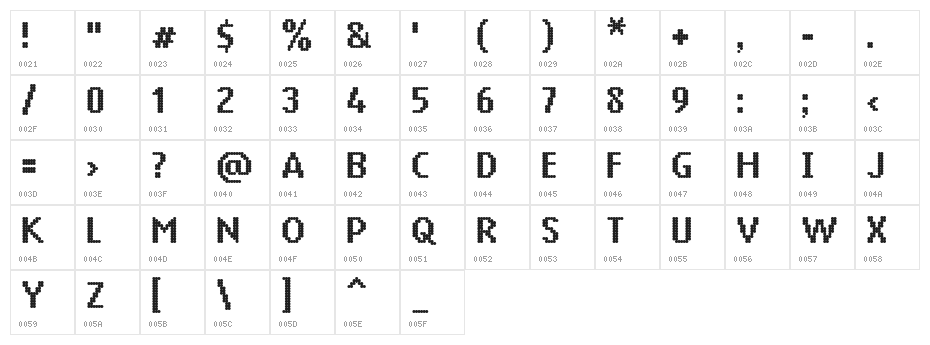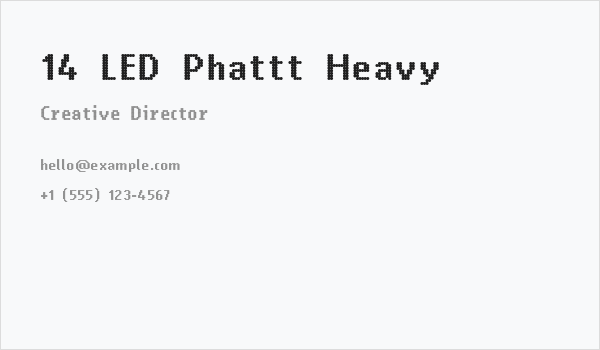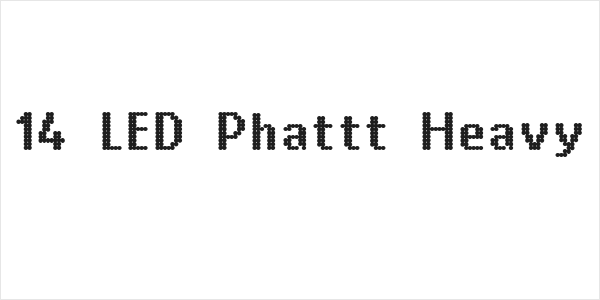
14 LED Phattt Heavy Font
14 LED Phattt Heavy Description
This font features a unique dot-matrix style, reminiscent of LED displays. Each character is composed of a series of small, evenly spaced dots, creating a bold and eye-catching appearance. The uppercase and lowercase letters maintain a consistent design, with rounded edges and uniform dot sizes. Numbers and special characters follow the same pattern, ensuring a cohesive look across all elements. This font's playful and digital aesthetic makes it ideal for projects that require a modern, tech-inspired feel.
| Use Case | Headlines, Logos, Digital Displays |
| Proposed Projects | Ideal for digital displays, tech-themed posters, modern advertisements, and creative branding projects. |